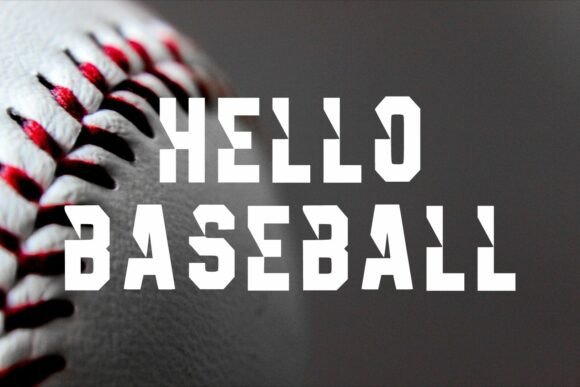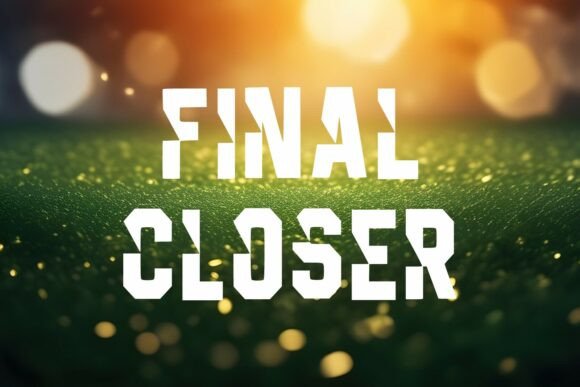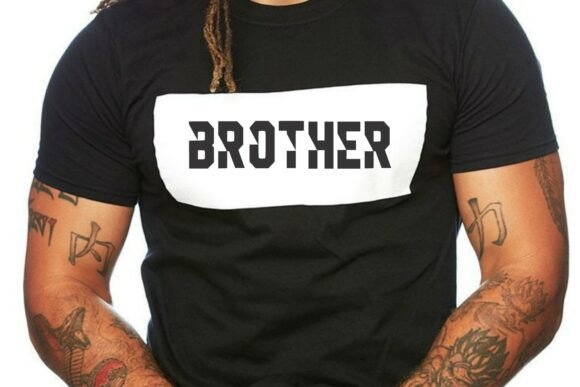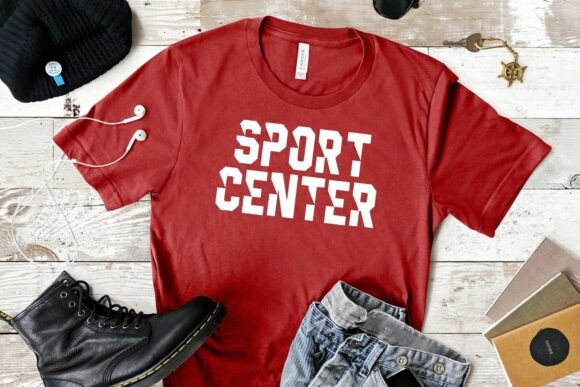
Introduction to Pro League Font
Have you ever been on the edge of your seat, watching a baseball game, feeling the rush of adrenaline as the crowd cheers on their team? For many of us, sports are a source of excitement and inspiration, and what better way to capture that energy than with a font that embodies the spirit of the game?
That’s where the Pro League Font comes in – a sports classic display font that’s sure to bring a touch of dynamism to your next creative project. With its bold lines, sharp edges, and commanding presence, this font is the perfect design resource for anyone looking to add a little extra oomph to their work.
Key Features of Pro League Font
- Unique characteristics include bold lines, modern typography, and a sleek, professional aesthetic.
Honest Review: Pro League Font
I recently came across the Pro League Font and was excited to give it a try. As a designer, I’m always on the lookout for high-quality design resources to elevate my creative projects. And I’m happy to say that this font does not disappoint.
One of the things that stood out to me was the font’s versatility. It’s perfect for use on its own, but also works well in combination with other fonts to add some extra flair to your design. The transparent background option is also a huge plus, making it easy to use in a variety of creative contexts.
However, there are a few limitations to keep in mind: ⚠️
- Some users may find the font a bit too bold or overpowering
- Limited character set, which may be a problem for more complex design projects
Overall, I’m really impressed with the Pro League Font and would definitely recommend it to other designers. It’s a high-quality design resource that’s perfect for a variety of creative projects, and the free download option makes it a valuable resource for anyone on a budget.
The Pro League Font is perfect for sports-related projects, such as jerseys, scoreboards, and sports-themed graphics. Its high-quality design and transparent background make it ideal for overlaying on images or graphics.